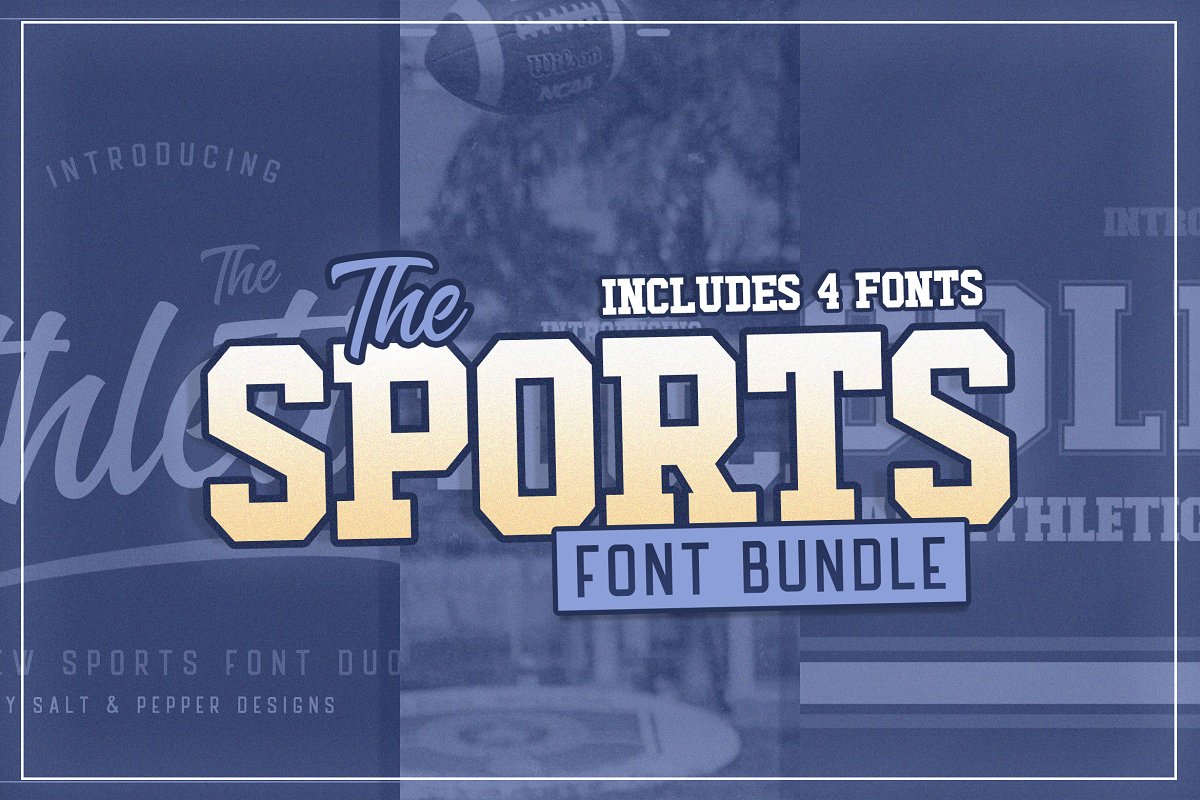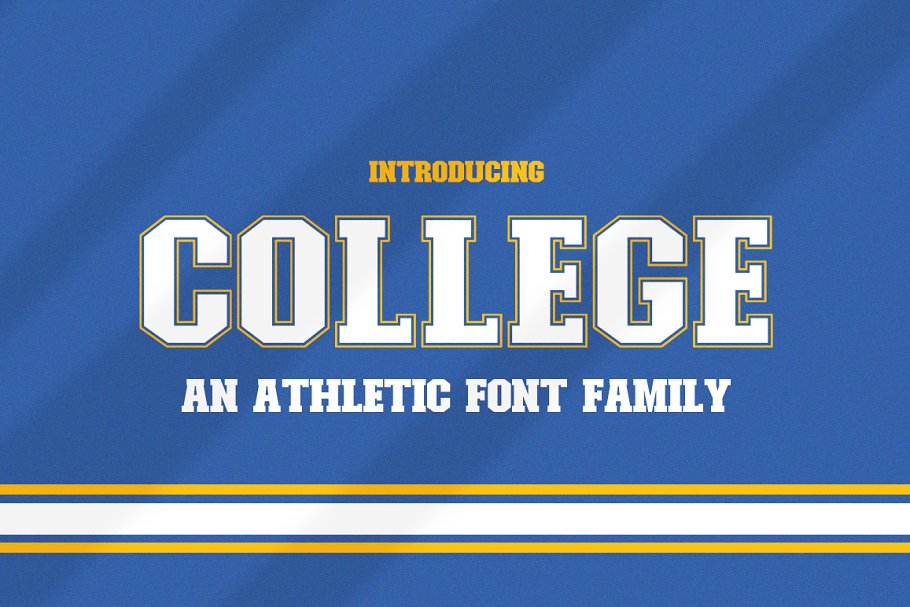
The Sports Bundle Font Family Free Download
About the The Sports Bundle Font
Follow us on YouTube and receive the Simply Lovely font for FREE!! – https://www, youtube, com/@dezgnerThis pack includes four different sport themed fonts and is available for a limited period of time for ONLY $12What’s IncludedThe Athletico Script FontThe Athletico Sans FontCollege Font FamilyTouchdown FontFree UpdatesFree Customer SupportIf you have any queries, questions or issues please don’t hesitate to contact us direct